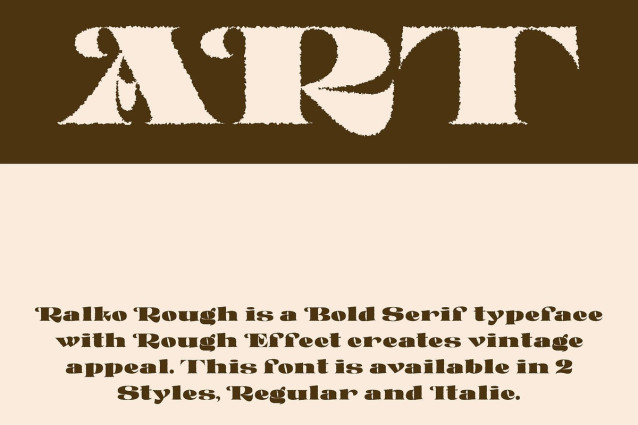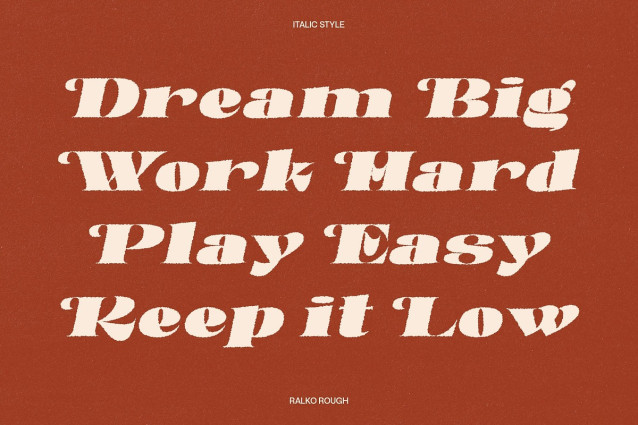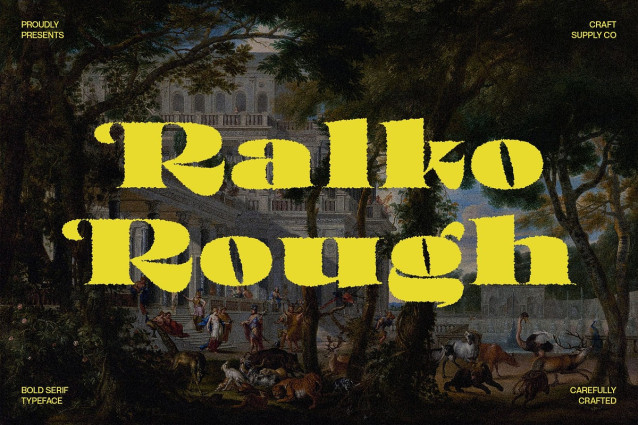
Ralko Rough Font
Ralko Rough Font is a serif font that fuses timeless elegance with a bold contemporary structure. Its clean, assertive letterforms provide a strong visual foundation while maintaining the grace of classic serif styling—perfect for designs that require both authority and sophistication.
Refined Structure for Professional Appeal The font’s well-balanced proportions and sharp contours convey a confident and professional tone. Its modern serif construction brings clarity and distinction to any design, making it ideal for luxury branding, editorial work, and high-impact titles.
Rough Texture for Organic Charm What sets Ralko Rough apart is its distinctive rough effect, which overlays the structured serif forms with a natural, gritty texture. This handcrafted finish brings a sense of warmth and imperfection that softens the boldness of the font. The result is a unique visual character that feels vintage, tactile, and full of personality—perfect for adding depth and authenticity to any design.
Versatile for Classic Yet Contemporary Design Whether you’re crafting a bold headline, a refined logo, or a creative composition with personality, Ralko Rough delivers a harmonious mix of elegance and edge. Its blend of polished design and textured finish makes it perfect for projects that aim to balance tradition with bold modernity.